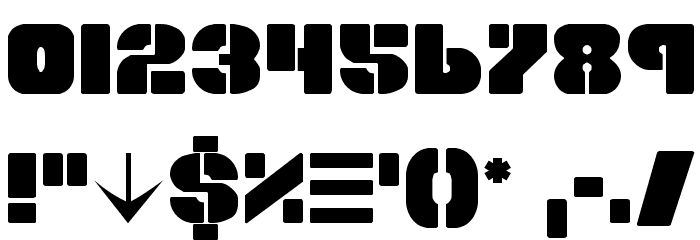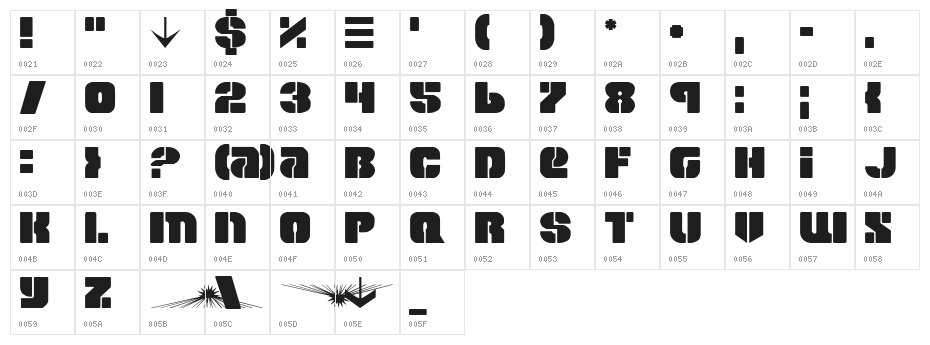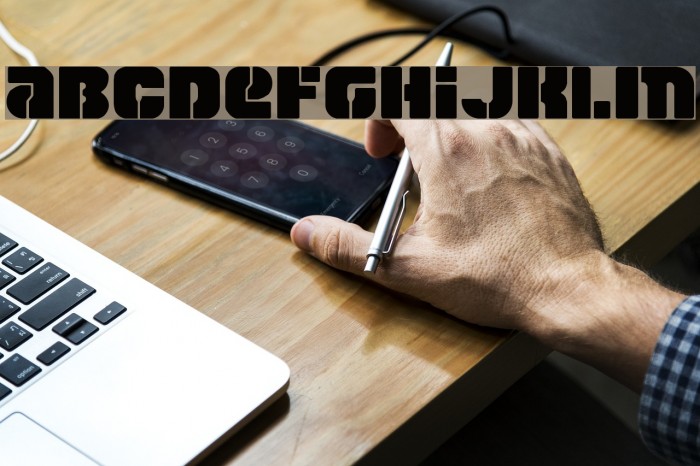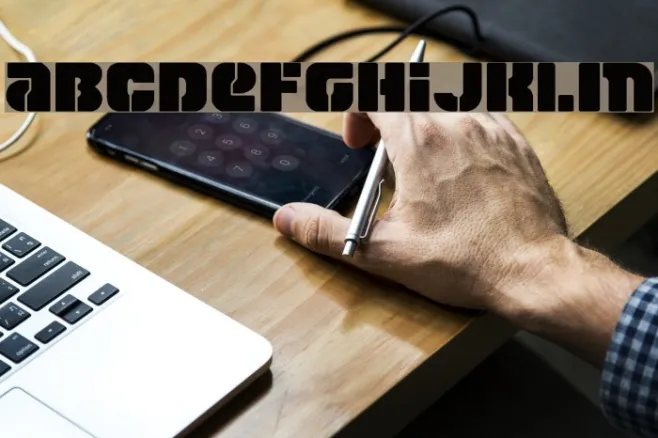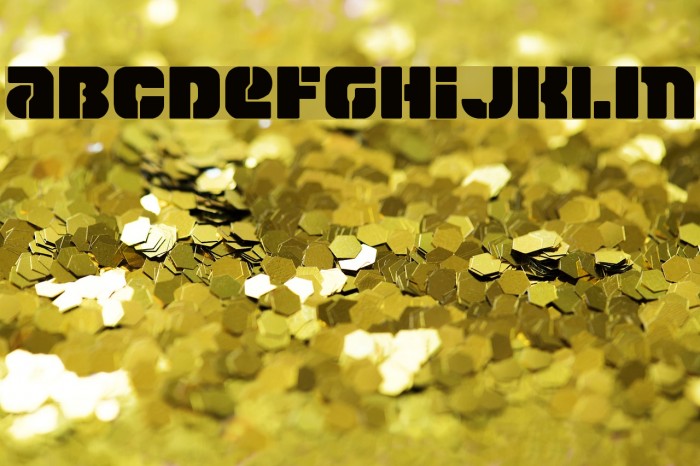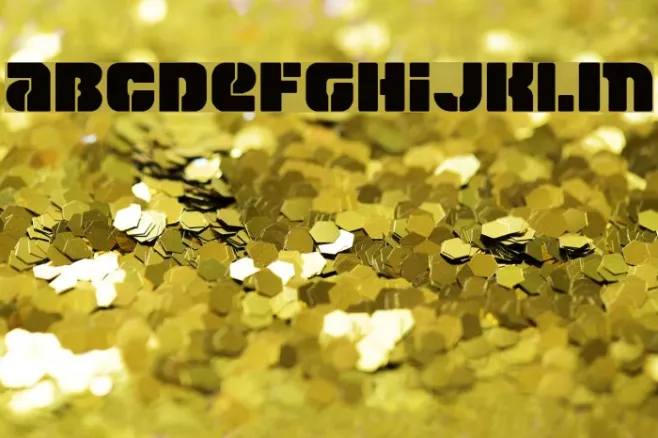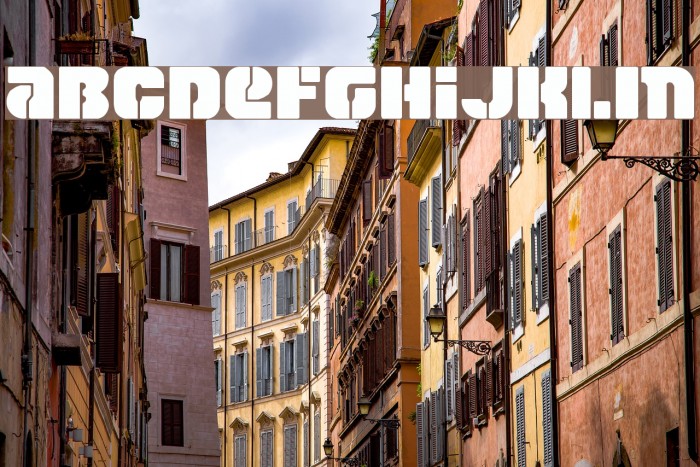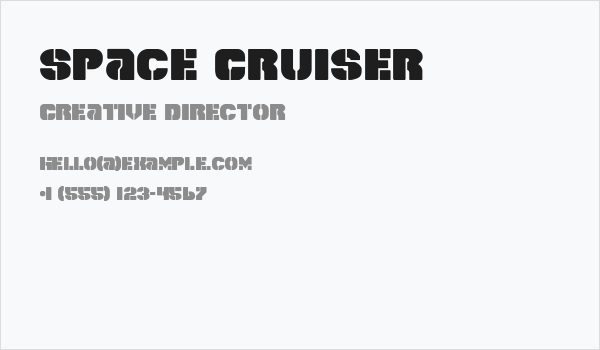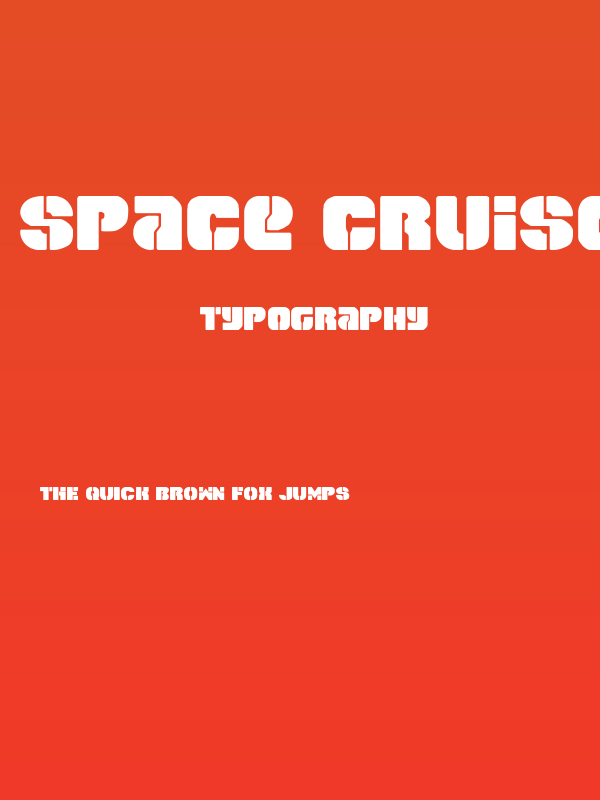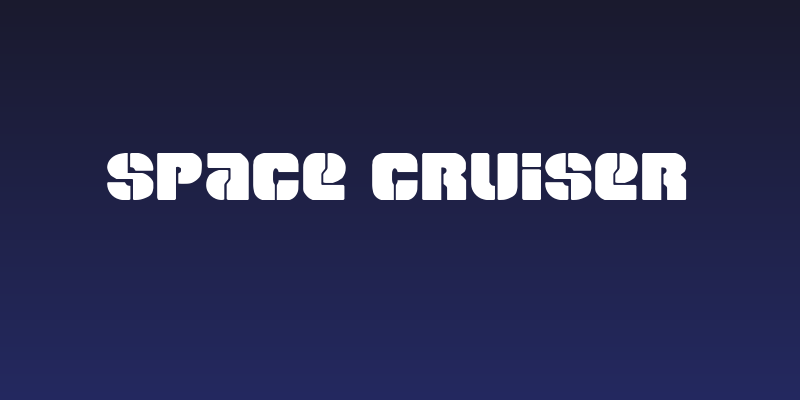
Space Cruiser Font
Space Cruiser Description
This font features a bold, futuristic design with a strong geometric influence. The characters are constructed with solid, block-like shapes that convey a sense of strength and modernity. The uppercase and lowercase letters share a consistent style, with angular cuts and sharp edges that give the font a distinct, industrial feel. The numbers and special characters maintain this aesthetic, making the font versatile for various applications. Its unique style is reminiscent of science fiction themes, making it ideal for projects that require a bold, standout typeface.
| Overall Style | Futuristic, Industrial |
| Proposed Projects | Ideal for sci-fi themed posters, video game titles, futuristic branding, and technology-related presentations. |